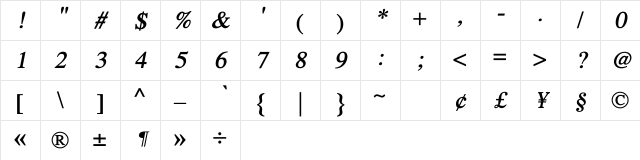
Mshtakan BoldOblique
Style: BoldOblique
Foundry: Michael Everson
Designer: Michael Everson
Design Context for Mshtakan
Mshtakan is a composed and adaptable typeface that performs quietly and consistently across a wide range of design contexts. The slanted form adds forward momentum and visual energy. Its bold stroke weight gives it real presence on the page.
Pro Tip: Use Mshtakan for emphasis, pull quotes, and subheadings where its slanted energy can add rhythm to the layout.
Who designed the Mshtakan BoldOblique font?